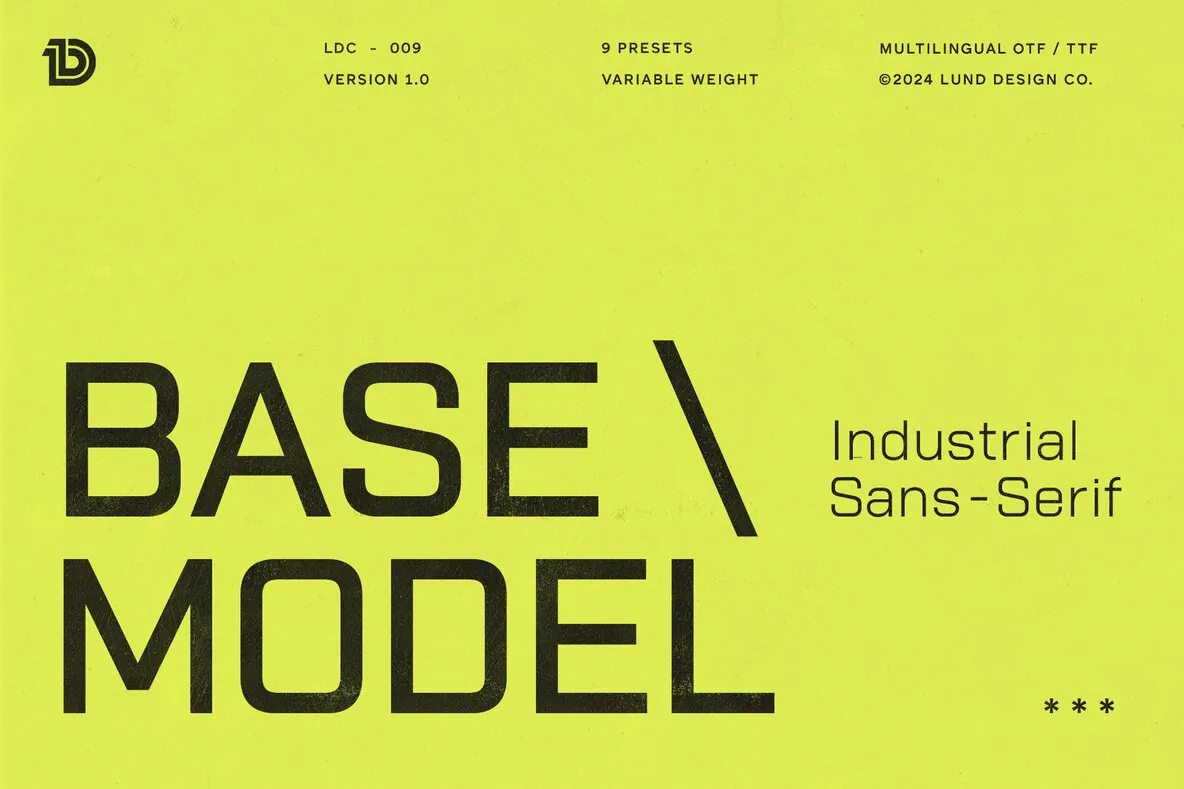
Base Model — Square Precision, Clean Impact
Base Model is an industrial square sans serif with variable weights. It stands out through strong geometric shapes and a modern minimalist approach. The design balances technical precision with visual clarity, making it a reliable choice for contemporary typography across digital and print use.
In thinner weights, Base Model reads sleek and tech-forward, well suited to user interfaces and refined branding. In heavier weights, it delivers confident boldness for headlines and attention-grabbing display work. Across sizes—from large display settings to small captions—it maintains a clean, professional presence. Designed for modern systems and global communication, it also supports accented and multilingual characters.
Variable weights offering flexibility from thin to bold.
Strong geometric construction delivering industrial minimalism.
Supports accented and multilingual characters for global use.
Optimized for headlines, branding, and user interface design.